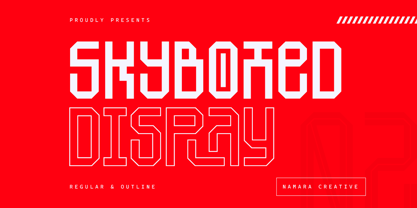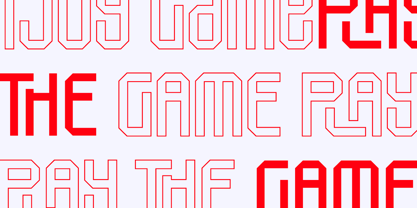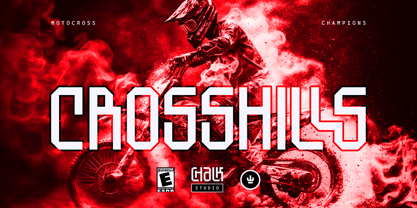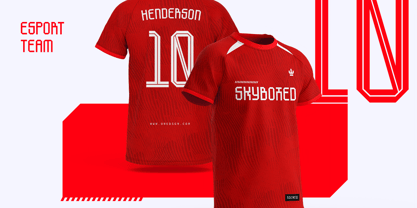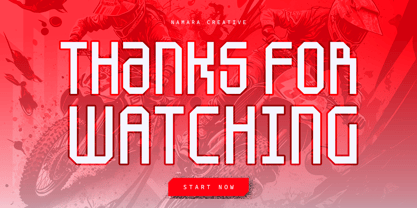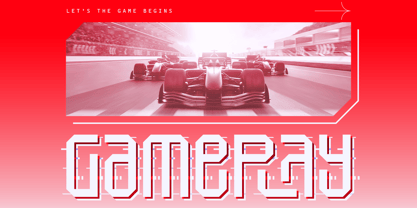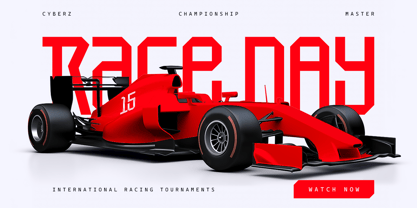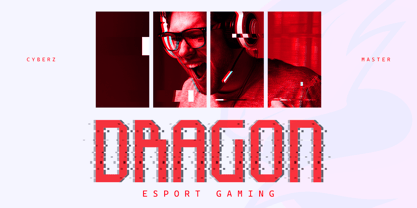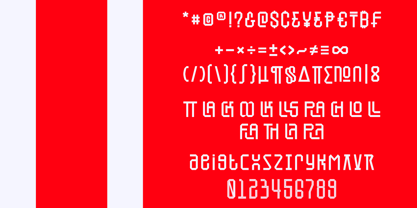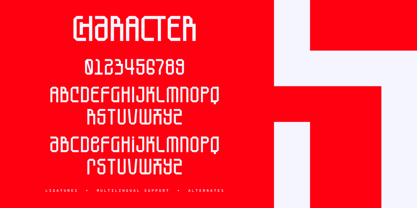
The SkyBoxed Font Family was designed by Toni Setiawan and published by Namara Creative Studio. SkyBoxed contains 2 styles and family package options. More about this family
Experience the next level of typography with SkyBoxed - a modern futuristic display font. This powerful font boasts a cutting-edge design inspired by strength and assertiveness. It's the perfect choice for sports jerseys, logos, headlines, posters, esports advertising, and any project that demands impact and distinction.
Features :
• Techno Cutting Edge with Futuristic Tech Looks.
• Alternates, Ligatures & Multilingual Support